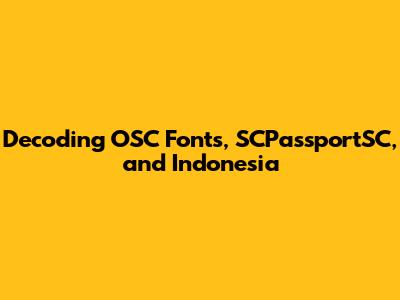
Let's dive into the world of OSC fonts, SCPassportSC, and their relevance to Indonesia. This might sound like a jumble of tech terms, but don't worry, we'll break it down into easily digestible pieces. We’ll explore what these things are, why they matter, and how they connect, especially within the Indonesian context. Whether you're a tech enthusiast, a font aficionado, or simply curious, this article aims to provide a comprehensive understanding of these topics. So, buckle up and let’s get started!
Understanding OSC Fonts
When we talk about OSC fonts, we're usually referring to a specific type of font format or a font collection designed for a particular operating system or application. Fonts, in general, are crucial for how we perceive and interact with digital text. They influence readability, aesthetics, and even branding. Think about it: a playful, rounded font gives a completely different vibe than a serious, serif font. OSC fonts might be optimized for screen display, ensuring that text looks crisp and clear on various devices. They might also be designed to support specific character sets or languages, which is especially important for global communication. Different types of fonts can evoke diverse feelings, ranging from trust and reliability to creativity and innovation, which can influence the audience's perception of the message being conveyed.
The technical aspects of fonts involve things like kerning (the spacing between individual characters), leading (the spacing between lines of text), and hinting (adjustments made to make fonts look good at small sizes on screens). These details might seem minor, but they significantly impact the overall reading experience. A well-designed font takes all these factors into account, resulting in text that is both visually appealing and easy to read. Moreover, the choice of font is a critical element in maintaining brand identity, as it helps to create a consistent and recognizable look across all marketing materials and communications. In the context of user interface design, the proper selection of fonts ensures that users can navigate and interact with software or websites efficiently, which enhances overall user satisfaction. Additionally, font designers often work to create typefaces that are accessible to individuals with visual impairments, emphasizing inclusivity and broader usability.
For Indonesia, having fonts that properly display the Indonesian language and its nuances is essential. This includes support for specific characters and diacritics used in Indonesian. In the digital realm, fonts ensure that content is accessible and visually appealing to a wide audience, contributing to the effective communication and preservation of language. Also in UI design, font choices can greatly impact user experience. Different fonts can affect readability and the overall aesthetic of a website or application, which are vital in creating an engaging and user-friendly digital environment. In corporate branding, fonts help establish and maintain a company's identity. A consistent use of specific fonts in logos, marketing materials, and communications strengthens brand recognition and conveys a sense of professionalism and coherence.
Decoding SCPassportSC
Now, let's unravel the mystery of SCPassportSC. This term likely refers to a specific font used in or related to the Singapore Combined Passport (SC). Passports, as official identification documents, require fonts that are highly legible and difficult to forge. The choice of font is a crucial security measure to prevent counterfeiting and ensure accurate identification. SCPassportSC, therefore, would be a font chosen with these considerations in mind. These fonts are meticulously selected to meet stringent security standards and maintain clarity. The goal is to provide law enforcement, immigration officials, and border control agents a high degree of reliability and accuracy.
Technical aspects of passport fonts include character design, spacing, and rendering. The font must be clear and readable under various lighting conditions and when reproduced using different printing technologies. The font's design should prevent characters from being easily altered or misinterpreted. The spacing between characters must be consistent to prevent misreading. Special attention is given to the design to make them difficult to alter or mimic. Details like unique serifs or distinctive curves are included. This ensures that any attempt to tamper with the document can be easily detected. The selection of a font is a strategic decision to mitigate risks associated with identity fraud and unauthorized document modifications. Regular evaluation and updates to passport fonts ensure that security measures remain effective against emerging threats.
In an Indonesian context, while SCPassportSC might not be directly used, the principles behind its selection are relevant. Indonesian passports, like any other country's, require fonts that meet international standards for security and readability. The Indonesian government likely employs fonts with similar characteristics to ensure the integrity and validity of its travel documents. The need for secure and reliable fonts extends beyond passports to other official documents, such as identification cards, licenses, and certificates. These documents must be resistant to fraud and tampering to maintain their credibility. This requires careful selection and design to ensure they cannot be easily replicated or altered. Advanced security measures, such as microprinting and holographic features, work in conjunction with font selection to reinforce the integrity and authenticity of official documentation, thus maintaining public trust and security.
The Relevance to Indonesia
So, how do OSC fonts and the principles behind SCPassportSC relate to Indonesia? The connection lies in the broader context of digital communication, document security, and linguistic representation. Indonesia, with its diverse population and growing digital presence, needs fonts that accurately display the Indonesian language across various platforms. This includes supporting the specific characters and diacritics used in Indonesian, ensuring that content is accessible and visually appealing to a wide audience. OSC fonts, or similar font technologies, play a crucial role in achieving this. Font consistency and character support are especially important for multilingual websites and applications. When fonts accurately render all the required characters, it enhances usability and ensures that content is accessible to a diverse user base. This allows users to interact with digital platforms and access information in their preferred language, which enriches their overall experience.
Furthermore, the security considerations behind SCPassportSC are universally applicable. Indonesia, like any other nation, needs to protect its official documents from fraud and counterfeiting. The principles of choosing fonts that are difficult to forge and easy to read are essential for maintaining the integrity of Indonesian passports, identification cards, and other important documents. The Indonesian government must select fonts that meet international standards for security and readability. This ensures that Indonesian documents are recognized and accepted worldwide. Employing advanced font technologies, such as microprinting and complex character designs, makes it more difficult for criminals to produce fraudulent documents. These security measures enhance the credibility and reliability of official documents, which is essential for maintaining public trust and national security.
Moreover, in the realm of digital design and branding, the choice of fonts can significantly impact the perception and effectiveness of communications. Companies and organizations in Indonesia need to select fonts that resonate with their target audience and convey the desired message. This requires an understanding of typography principles and an awareness of the cultural nuances that influence visual communication. The strategic use of fonts can enhance brand recognition and build stronger relationships with customers and stakeholders. Font selection should align with the overall brand strategy and messaging, ensuring that all visual elements work together to create a cohesive and impactful brand identity. Regular brand audits can help ensure consistency and relevance in font usage, thereby reinforcing the brand's values and positioning in the marketplace.